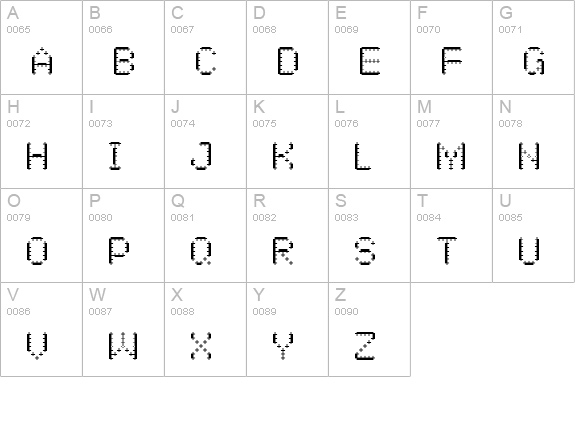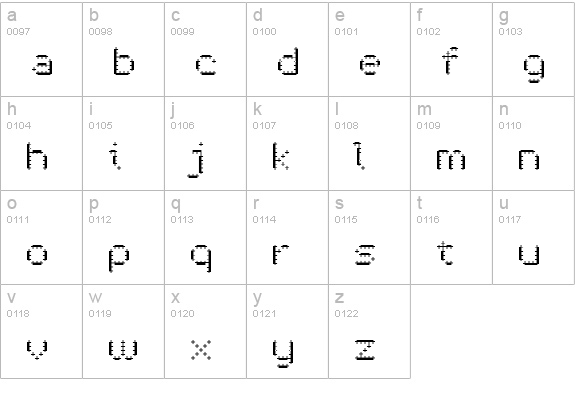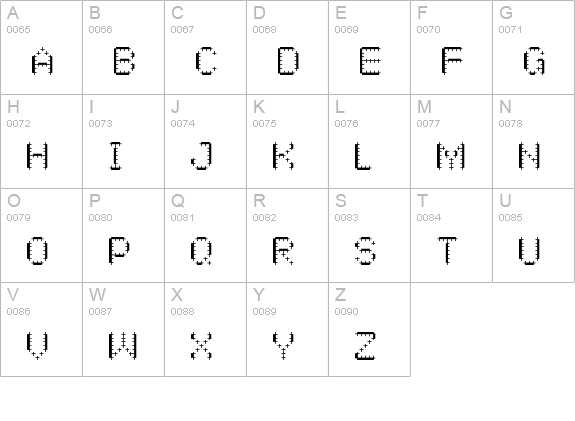
OneCross Light is a refined, elegant variant in the OneCross typeface family \xE2\x80\x94 well suited to elegant body text, refined sub-headings, and luxury branding.